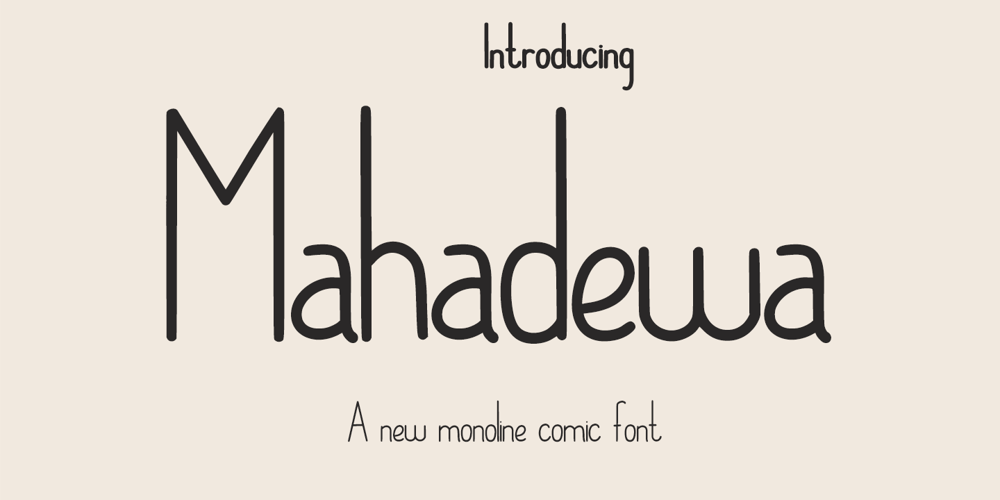
Mahadewa
Mahadewa font
Mahadewa Font Family was designed by Muhammad Zaini and published by Cocodesign. Mahadewa contains 4 styles and family package options. Mahadewa Display is a modern calligraphy design, including Regular. This font is casual and beautiful with swash. Can be used for various purposes. such as logos, product packaging, wedding invitations, branding, headlines, signage, labels, signatures, book covers, posters, quotes, and more.